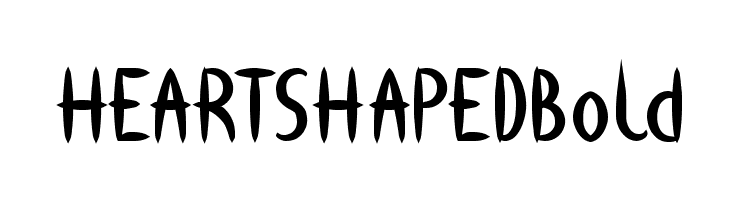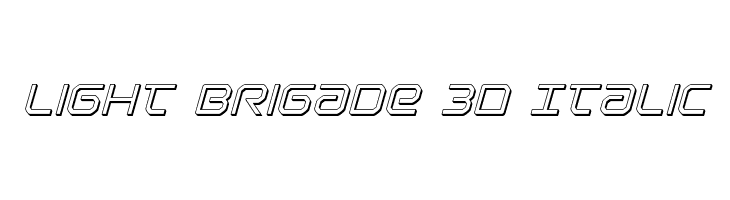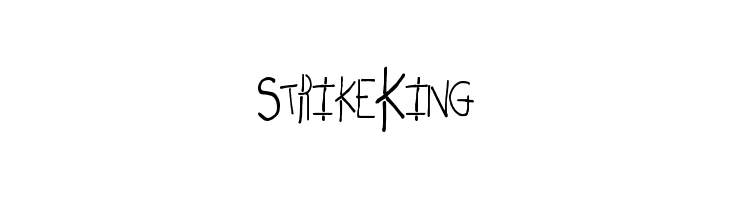
A bold, 3D italic font with a futuristic and geometric style.
( LJ Design Studios - www.ljdesignstudios.com )
A bold, italicized font with a futuristic and angular design.
( Murizar - www.rizky-ariesto.blogspot.com )
A playful, handwritten font with irregular, whimsical strokes.
( Fonts by Khusnul Ulum )
A geometric, grid-based font with a modern, minimalistic style.
A bold, pixelated font with a retro, 8-bit video game aesthetic.
( 'Sanz Fonts - sanzclouds.blogspot.com )
A playful, handwritten-style font with quirky, uneven strokes.
( Peter S. Baker - faculty.virginia.edu/oldenglish/ )
An elegant italic font with classic calligraphic influences and modern refinement.
A playful and artistic font with dynamic, hand-drawn letterforms.
( Twicolabs Fontdation - Fahrizal Tawakkal - fontdation.com )
A bold, modern sans-serif font with clean lines and strong presence.